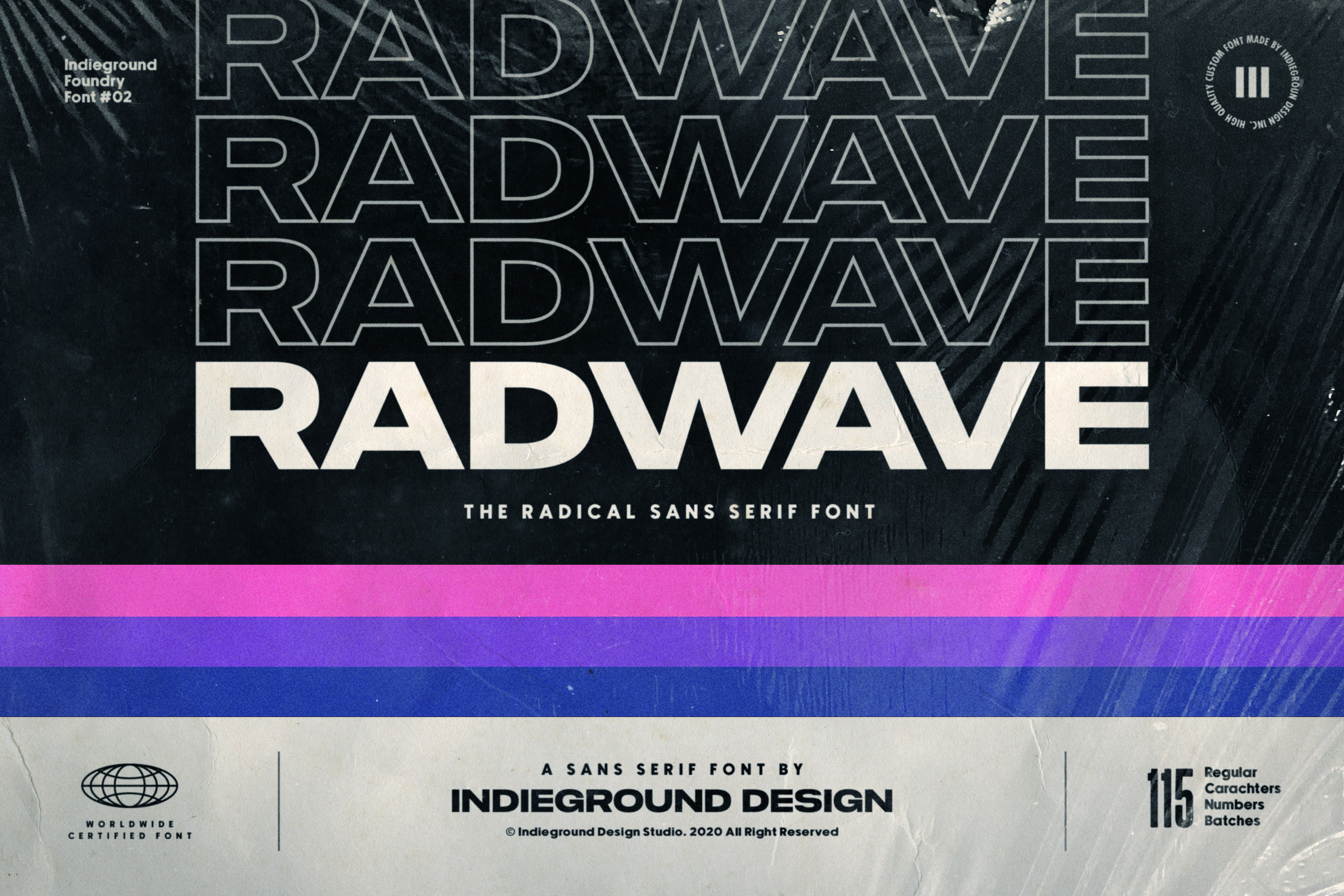
Radwave Font
Radwave Font by Indieground This wide & modern sans-serif font made by the Indieground Team is perfect for your heavy titles. It highlights at best and gives boldness to the typography of your artworks. This regular version includes the full characters set and also the outlined version shown in the preview.